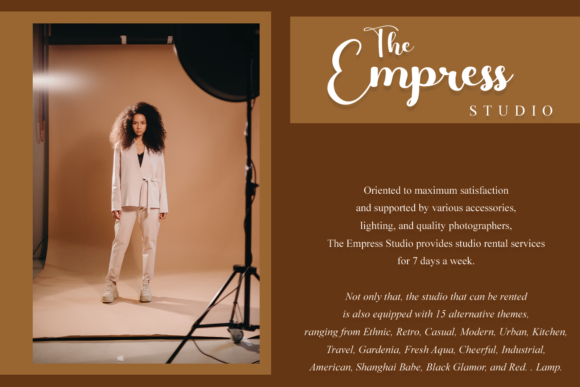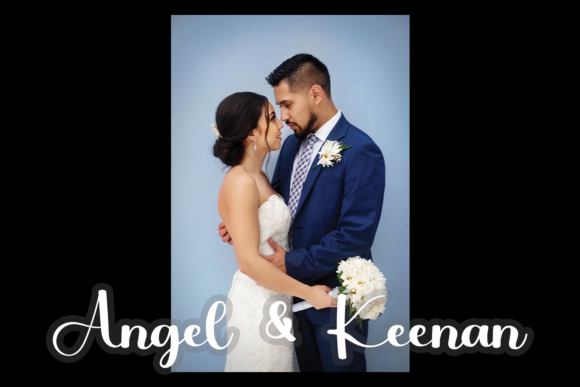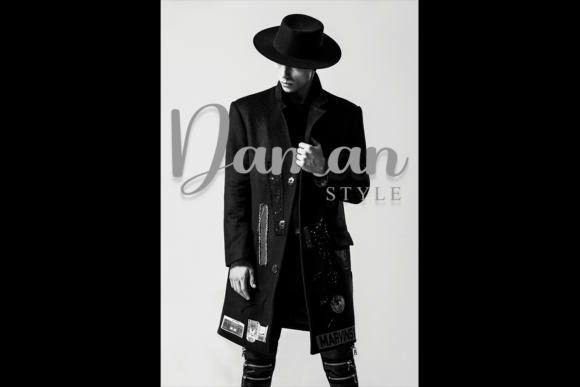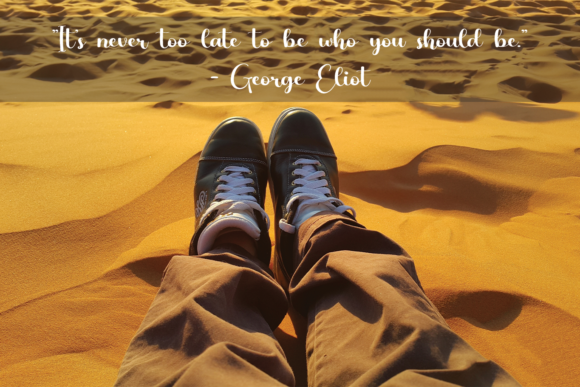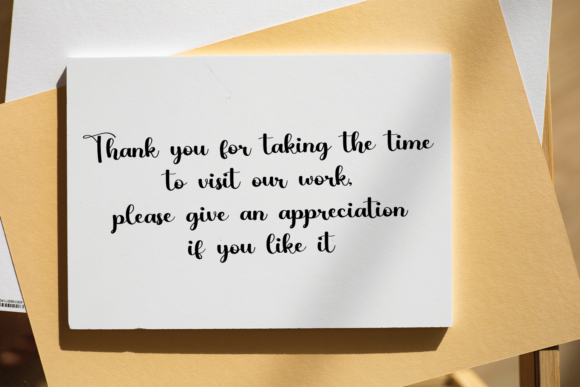
Introduction to Sahara Font
Do you ever find yourself staring at a blank page, desperately searching for that perfect font to bring your creative project to life? You’ve got a vision, but the right words just won’t seem to dance together the way you imagine them. That’s where the Sahara Font comes in – a lovely script font that adds a touch of whimsy and personality to any design.
With its charming, playful characters, the Sahara Font is the perfect design resource for anyone looking to add a little extra flair to their work. Whether you’re working on a free download or a high-quality design project, this font is sure to stand out. And the best part? It’s available with a transparent background, making it easy to use and customize to suit your needs.
Key Features of Sahara Font
- High-quality design resource with a unique and elegant aesthetic, perfect for creative projects.
- Supports multiple languages, making it a versatile design resource for global creative projects.
- Perfect for use in logos, branding, typography, and other design elements where a sophisticated and modern look is desired.
Honest Review: Sahara Font
I recently came across the Sahara Font and was impressed by its unique style and versatility. As a designer, I’m always on the lookout for high-quality design resources that can elevate my creative projects. In this review, I’ll share my honest thoughts on the Sahara Font.
Limitations: ⚠️ While the Sahara Font is a great addition to any design library, I found the font selection to be somewhat limited. The font family could benefit from more variations and styles to cater to diverse design requirements.
Overall impression: The Sahara Font is a solid design resource that I would recommend to fellow designers. Its high quality and flexibility make it an excellent choice for creative projects. With a bit more variety in the font family, it could truly stand out in the market.
- Customizable
- Available in various styles (though limited)
The Sahara Font
Getting the Most Out of the Sahara Font
To get the most out of the Sahara Font, experiment with different font sizes, colors, and styles. Use it in combination with other design elements to create a unique and eye-catching design.
Alternatives to Sahara Font
Aurora Script is a high-quality, elegant font ideal for creative projects requiring a touch of sophistication. It’s perfect for use in wedding invitations, greeting cards, or any design that demands a sense of luxury. With a transparent background, this font can be easily combined with other design elements. Its beauty lies in its simplicity, making it a great alternative to the Sahara Font for designers seeking a subtle yet striking effect.
Playfair Display is an opulent, high-quality font perfect for designers working on luxury brands, magazines, or any creative project requiring a sense of grandeur. Its classic design and elegant feel make it an excellent choice for use in headings and titles. Compared to the Sahara Font, Playfair Display has a more dramatic flair, making it ideal for designers who want to add a touch of drama to their work.
Lato is a modern sans-serif font ideal for designers working on digital projects, including websites, apps, and social media graphics. Its clean design and high-quality feel make it an excellent choice for use in body text and headings. With a transparent background, Lato can be easily combined with other design elements, making it a great alternative to the Sahara Font for designers seeking a versatile and modern font.